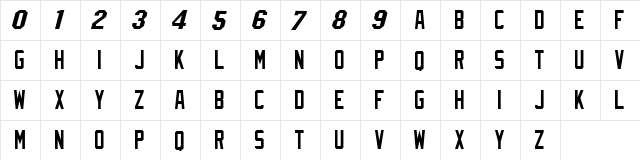
NBA Heat Regular Font Preview
NBA Heat Regular
NBA Heat Regular Font Details
Design Context for NBA Heat Typeface
NBA Heat offers clean, dependable letterforms without strong stylistic allegiance, making it a practical choice for designers who need flexibility.
Pro Tip: Use NBA Heat in both headline and body roles to test its range before committing to a single application.